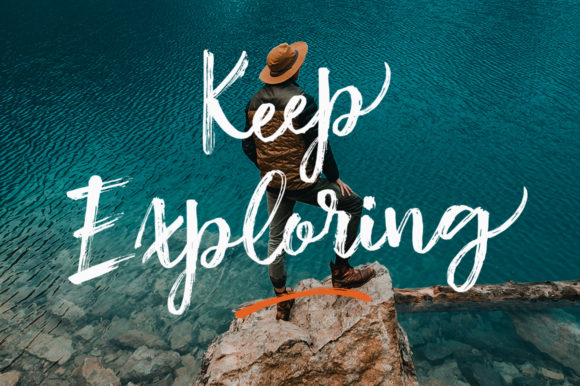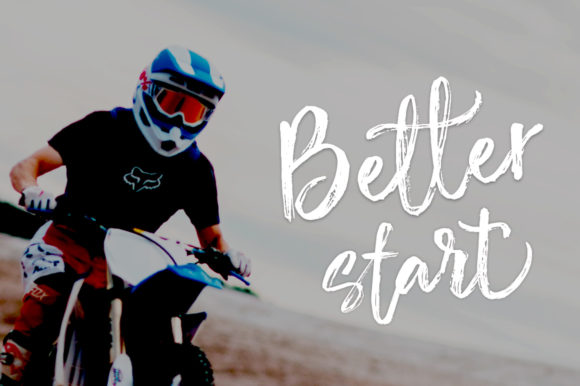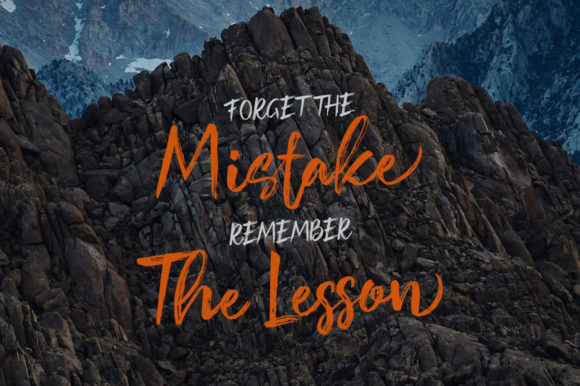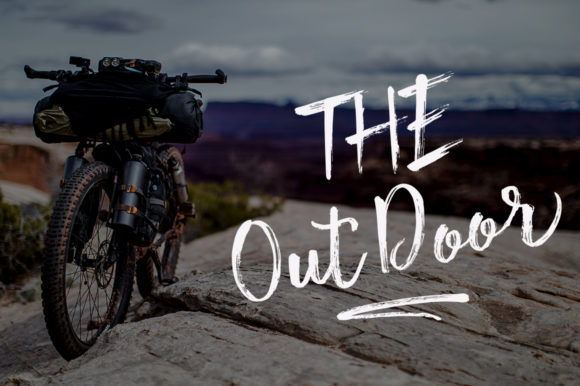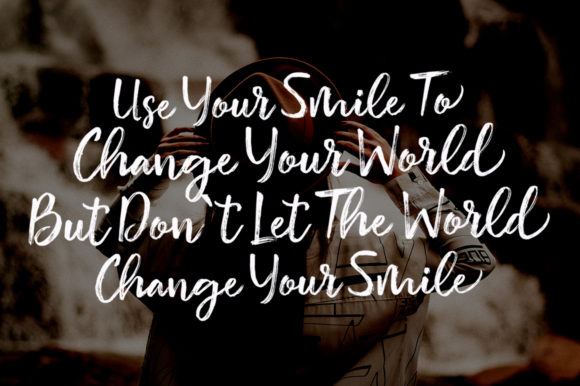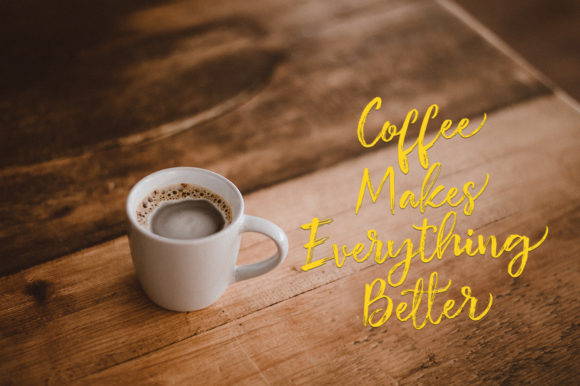
The Perfect Brush Stroke: Unlocking the Power of Basting Font
Have you ever found yourself staring at a blank page, pen in hand, trying to bring a creative idea to life? The thrill of watching your thoughts transform into tangible words is exhilarating, but sometimes, it’s the little things that make all the difference. For designers, the right font can be the game-changer that elevates a project from good to great.
Enter the Basting Font, a casual handwritten script designed to add a touch of elegance and personality to any design. With its detailed brush stroke texture, this font can be used for a wide range of purposes, from titles and signatures to letterheads, labels, and more. Whether you’re creating a logo, designing a newsletter, or crafting an invitation, the Basting Font is sure to bring a unique touch to your work.
For designers, the value of a versatile font like Basting Font lies in its ability to add depth and character to any project. With its natural, handwritten feel, this font is perfect for creating a sense of warmth and approachability, making it an ideal choice for branding, marketing, and editorial design.
Basting Font Key Features
- Unique Characteristics: Basting Font features a distressed, vintage aesthetic with subtle texture and imperfections, adding a unique touch to designs.
- Character Set: The font includes a comprehensive character set, including Latin, Cyrillic, and Greek alphabets, as well as punctuation and special characters.
- Font Weight: Basting Font offers multiple font weights, from light to bold, allowing designers to achieve the desired level of emphasis and visual hierarchy.
Basting Font Review
Overall, I’d say that Basting Font is a decent addition to any typographer’s toolkit. Here are a few things that work well:
- ✨ Elegant and sophisticated design aesthetic, making it perfect for luxury brands and high-end applications
- ✨ Wide range of languages supported, including Latin, Cyrillic, and Greek scripts
- ✨ Beautiful italics that add a touch of sophistication to any text
However, there are a few limitations that prevent it from being a top-tier font:
- ⚠️ Limited character set, which may cause issues for more complex text
- ⚠️ Not ideal for body text due to its ornate design, which can be overwhelming for large blocks of text
- ⚠️ Some users may find the font to be too formal or stuffy, which may not be suitable for all brands or applications
Overall, I’d give Basting Font 3.5 out of 5 stars. While it’s a beautiful font with a lot of potential, its limitations hold it back from being a truly great font. However, it’s still a solid choice for specific applications where its elegant design is a good fit.
Use Basting Font to add a unique touch to your designs.
Experiment with different font sizes and colors to create a visually appealing effect.
Use Basting Font in combination with other design elements to create a cohesive look.
Basting Font is ideal for:
Creating eye-catching headings and titles.
Designing unique and creative logos.
Adding a personal touch to invitations and other paper crafts.
Alternatives to Basting Font
Playfair Display is an elegant, high-end serif font ideal for luxury brands, high-end fashion, and fine dining. It features intricate details and ornate flourishes, making it perfect for creating a sophisticated and luxurious atmosphere. Unlike Basting Font, which is more of a rustic and vintage font, Playfair Display is more refined and sophisticated.
Great Vibes is a modern, cursive font that exudes a sense of freedom and playfulness. It’s perfect for creating a relaxed and casual atmosphere, making it ideal for beachwear, outdoor brands, and travel companies. Unlike Basting Font, which has a more rustic feel, Great Vibes is more carefree and spontaneous.